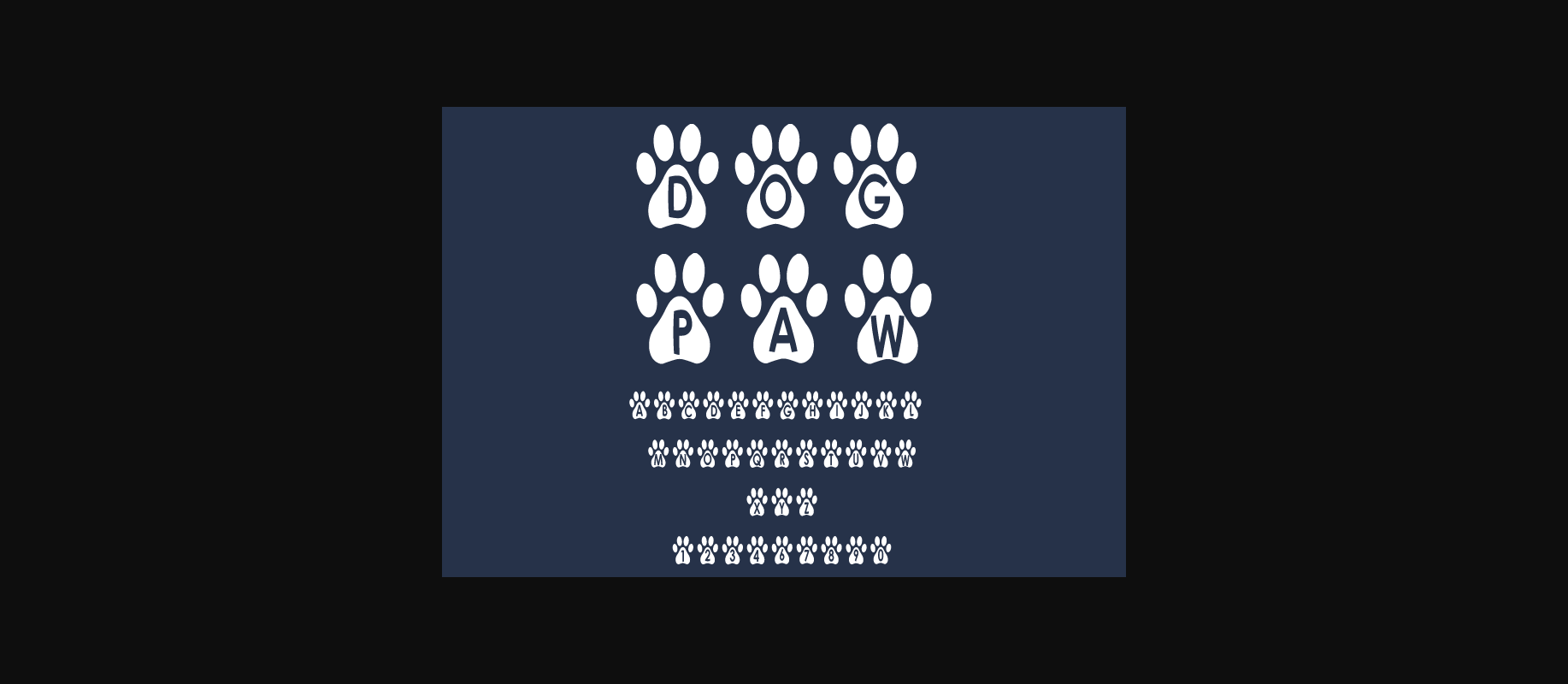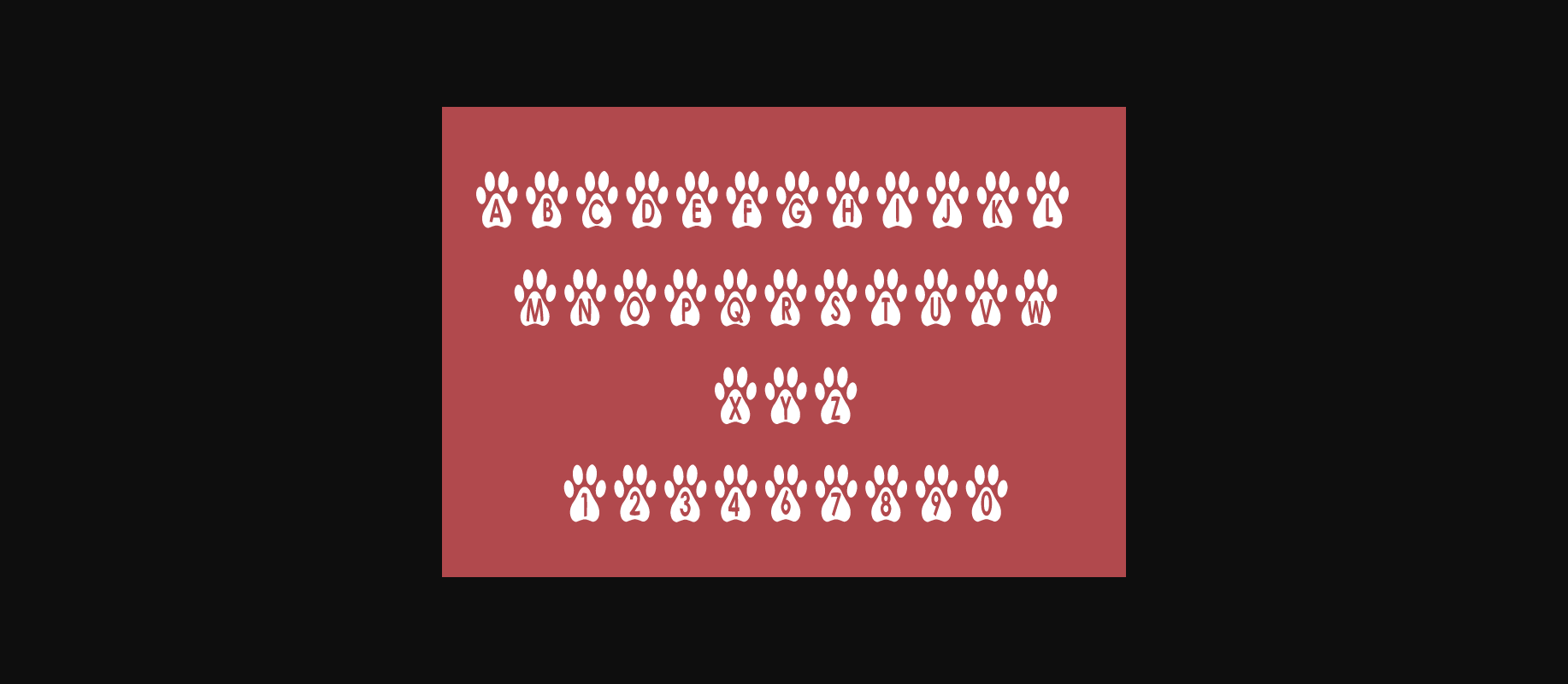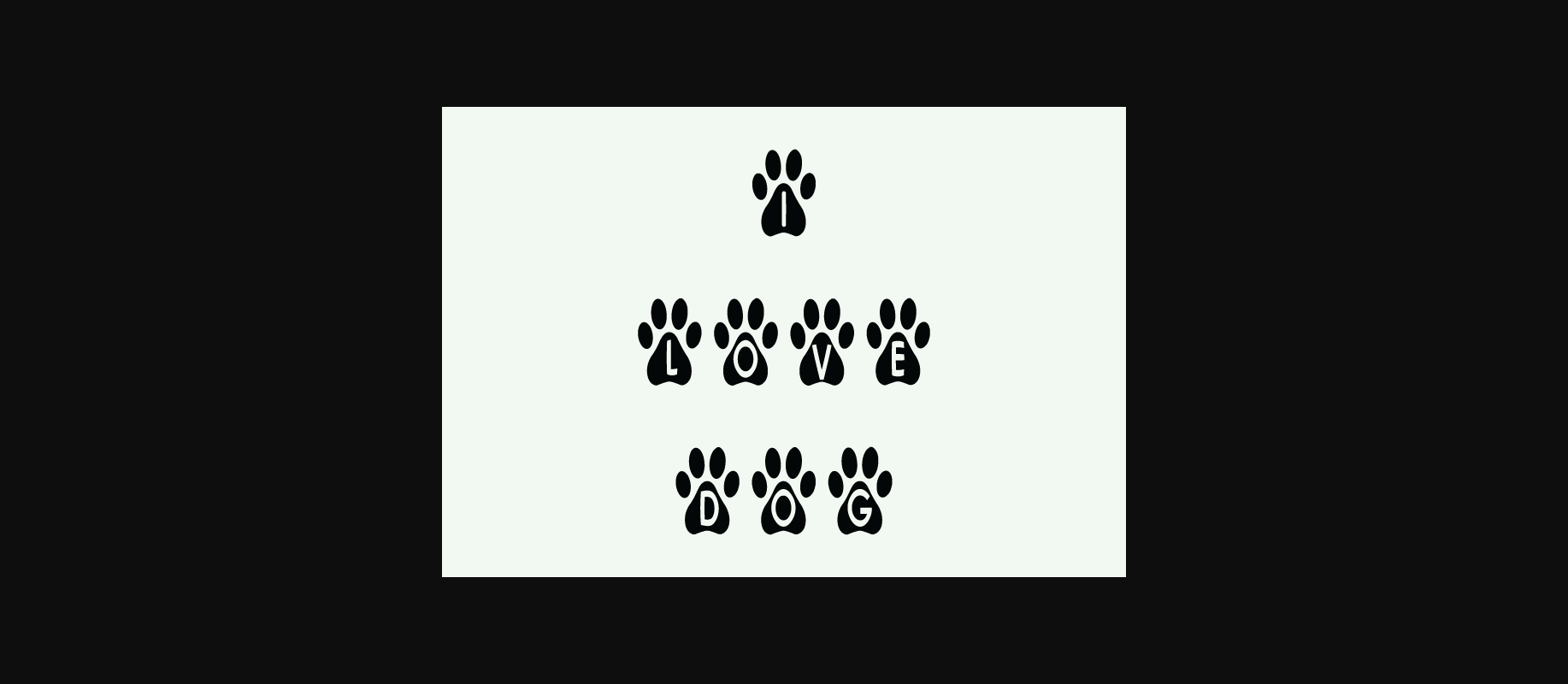
About Dog Paw Font
Dog Paw Font is a simple, digital, and modern font. This modern font is suitable for logos, brand designs, headlines, and many other projects. Add it confidently to your projects, and you will be speechless with the obtained results.